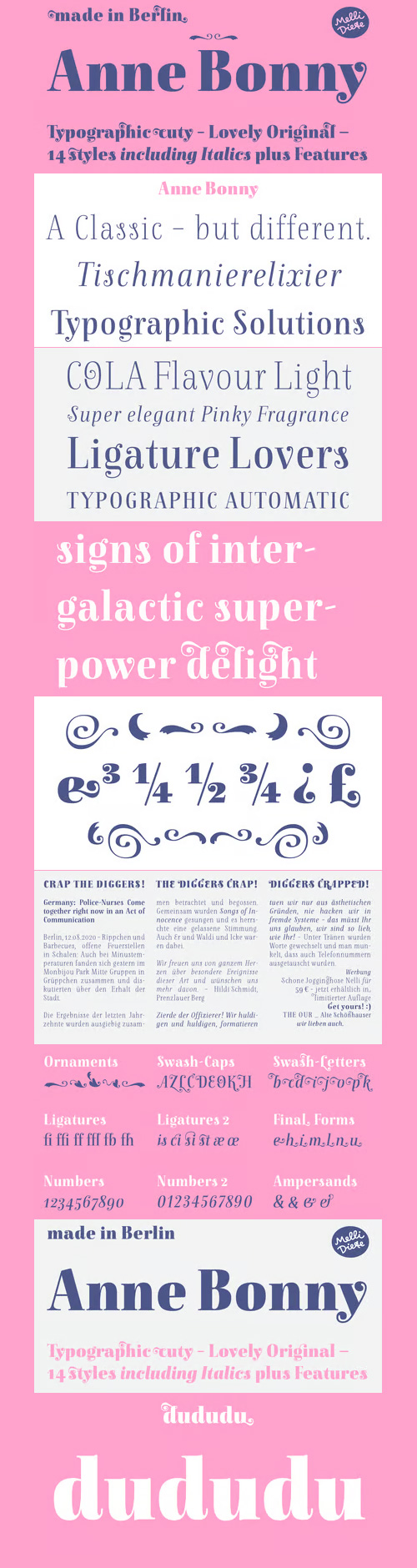
Anne Bonny is the comrade of Mary Read Type.
It has the same proportions and nearly the same OpenType-Features.
It is a Bodoni-inspired typeface with a sweet and female touch.
You can choose between the swashes-feature, initials, final letters,
many ligatures and ornaments. Highly legible.